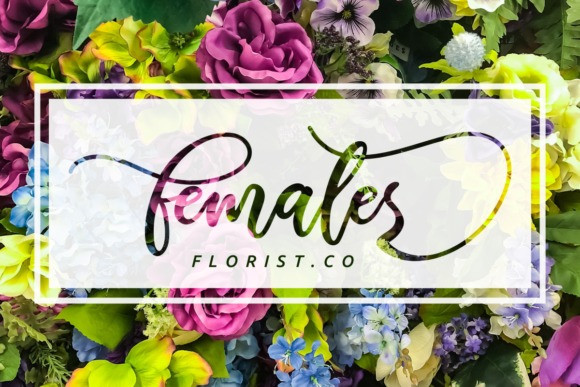
Humaira Calligraphy Font
Hello world..!! This is a Modern Calligraphy script with stylistic altrnates for all the lowercase letters and numbers for natural flow and rhythm. Introducing Humaira Font! Humaira is a modern calligraphy font that feels beautiful classy, elegant, and modern. It is will be suitable for any projects such as logo’s, branding projects, homeware designs, product packaging, mugs, quotes, posters, shopping bags, t-shirts, book covers, name card, invitation cards, greeting cards, label, photography, watermark, special events, and all your other lovely projects that need beautiful handwriting taste.